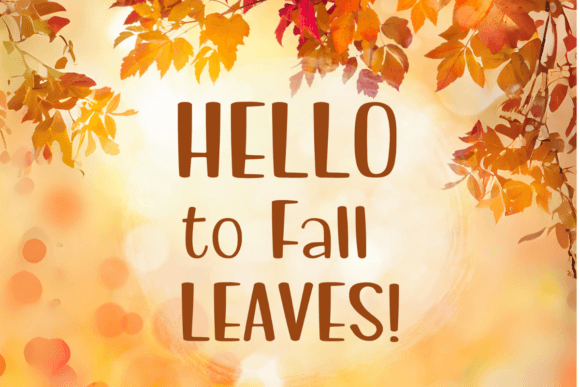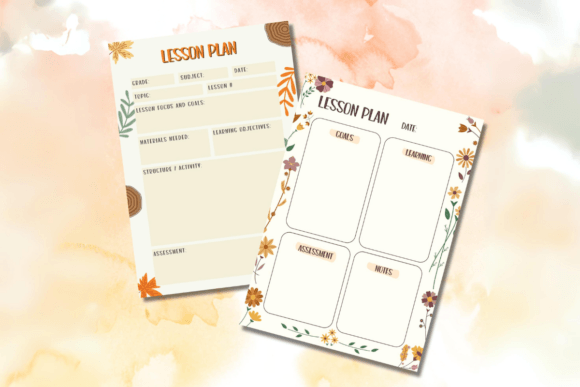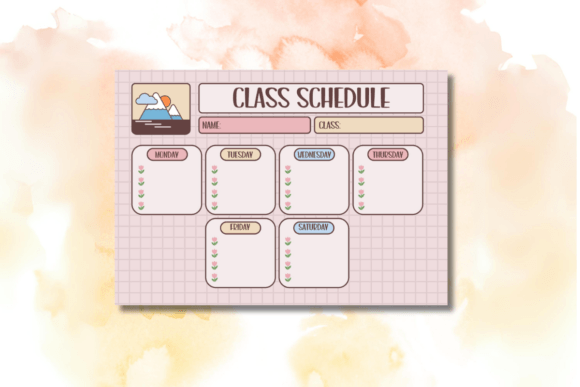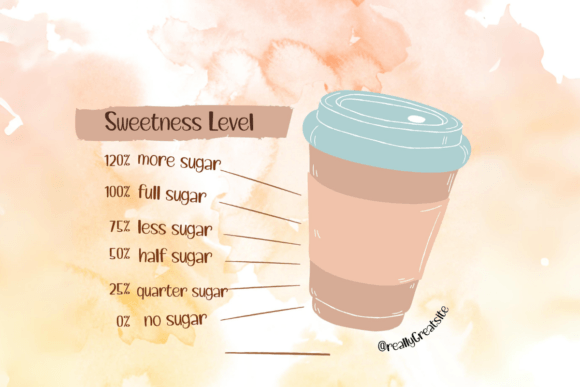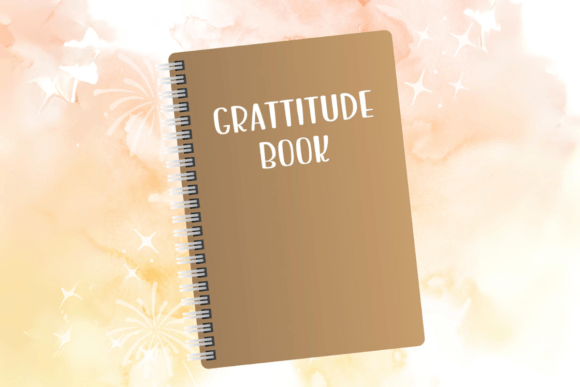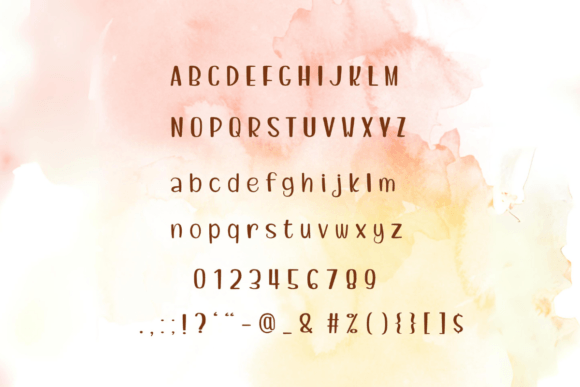
Introduction to Orange Garden Font
As a designer, I’m sure you’ve experienced that moment when you’re brainstorming a new project and everything just clicks – the colors, the typography, the overall vibe. It’s like the stars align, and you know exactly what you need to bring your idea to life. For me, that moment often involves scouring through design resources to find the perfect font to match my creative vision. And that’s where Orange Garden Font comes in – a charming, whimsical, and quirky handwritten font that’s sure to elevate your next project.
Whether you’re working on a digital planner, a wedding invitation, or a fun advertisement, Orange Garden Font is the perfect addition to your design arsenal. Its playful sans-serif style makes it a standout among other fonts, and its high-quality design ensures that it will look great on any background – even with a transparent background, if needed.
Key Features of Orange Garden Font
- High-quality design resource suitable for various creative projects, including branding, advertising, and packaging.
- Unique, hand-drawn style with a mix of modern and vintage elements, making it perfect for designers looking for a distinctive look.
- Includes a transparent background, allowing for easy integration with any design or background image.
- Designed in a large size range (Uppercase: 200-800 pt, Lowercase: 120-600 pt), making it suitable for various applications, from small text to large headings.
- High-resolution design (scalable up to 1000 dpi), ensuring crisp and clear rendering on any device or medium.
- Perfect for designers and artists working on creative projects that require a unique and eye-catching font, such as book covers, posters, and more.
Honest Review: Orange Garden Font
I recently stumbled upon the Orange Garden Font and was excited to give it a try. As a designer, I’m always on the lookout for high-quality design resources that can elevate my creative projects.
- ✨ Unique and elegant design that adds a touch of whimsy to any layout
- ✨ High-quality glyphs and clear lines that make it perfect for body text and headings
- ✨ Comes with a transparent background, making it easy to use with any color scheme
- ⚠️ Limited character set, which may not be ideal for projects that require a wide range of characters
- ⚠️ Not suitable for small font sizes, as the strokes may become blurry
Orange Garden Font is perfect for creative projects, such as:
- Blogging and website design
- Graphic design and visual branding
- Print materials and marketing materials
For the best results, use the Orange Garden Font with a transparent background to create a clean and modern look. You can also experiment with different font sizes and colors to add visual interest to your design.